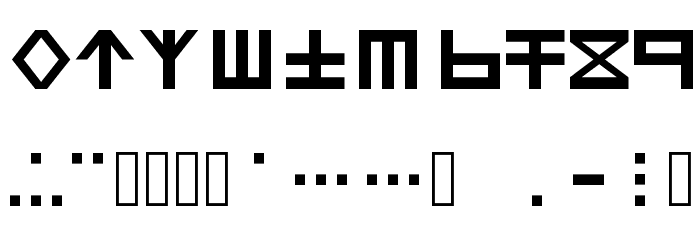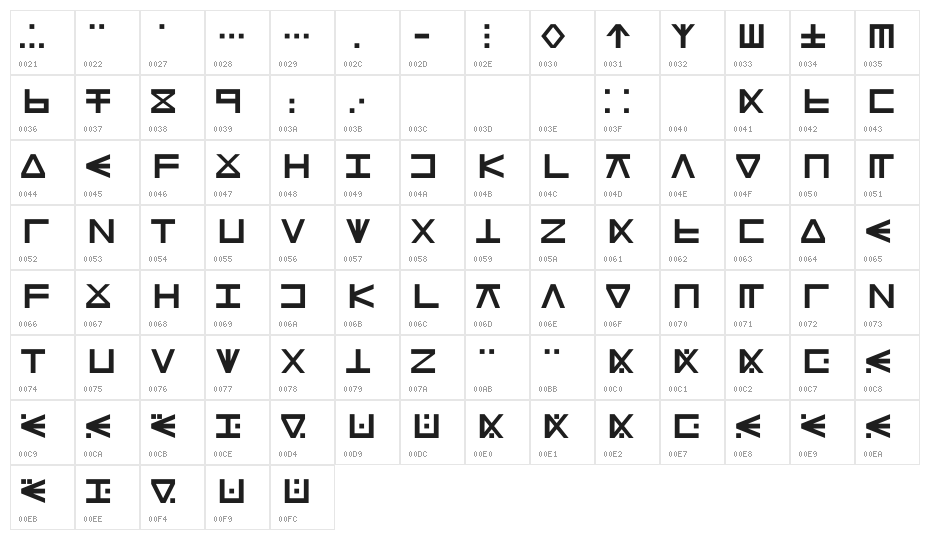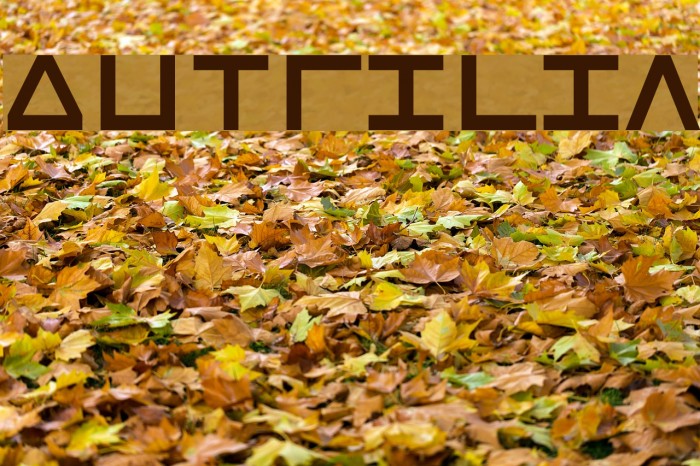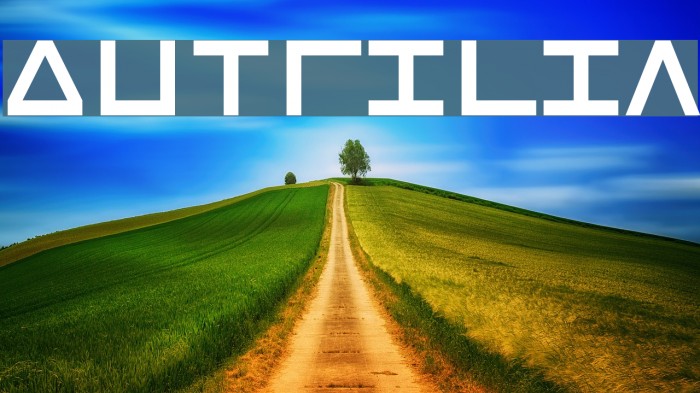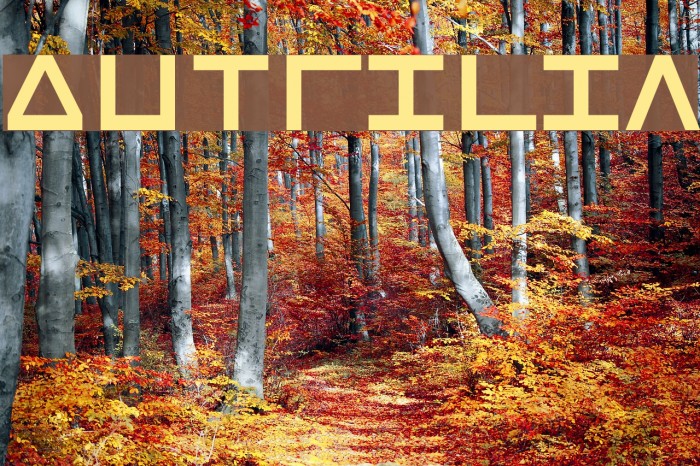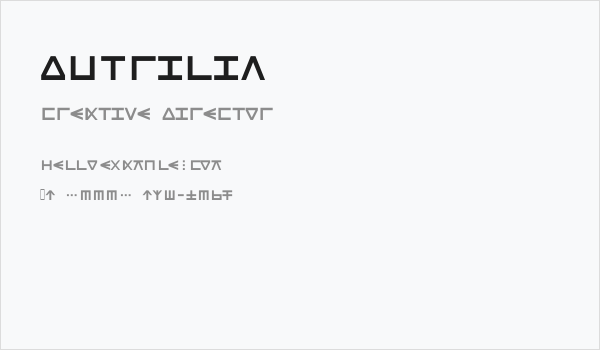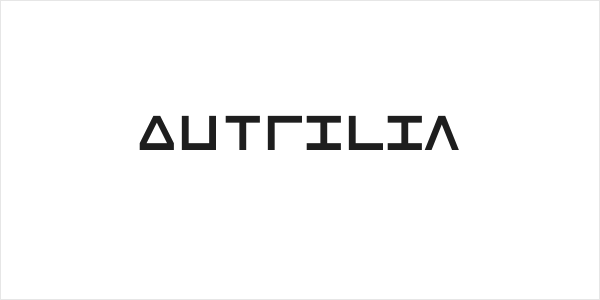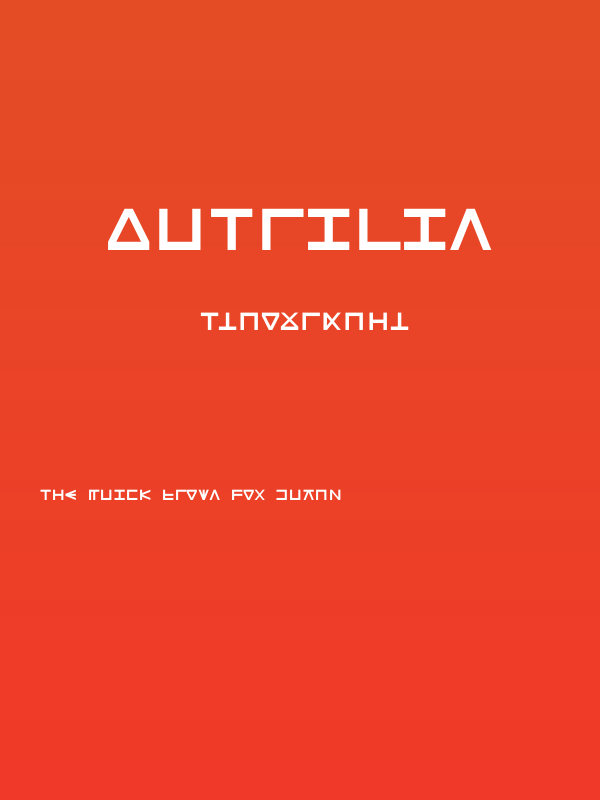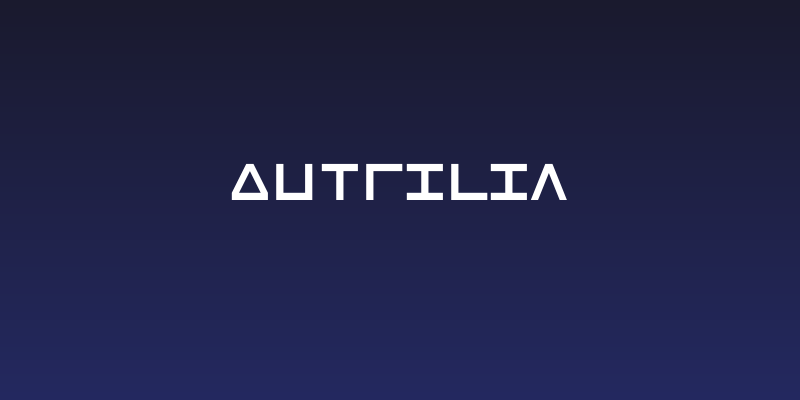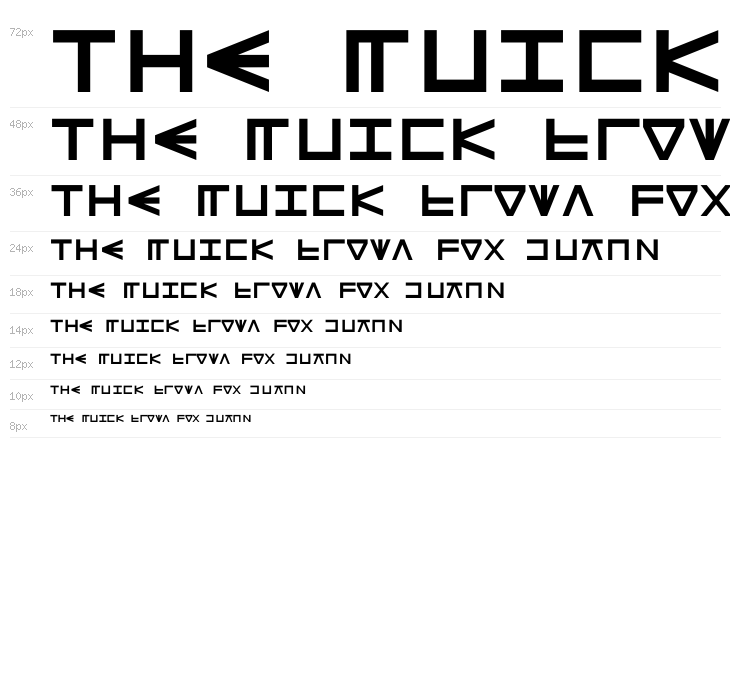
Dutrilin Font
Dutrilin Description
This font features a highly geometric and angular design, reminiscent of ancient runic or tribal scripts. Each character is constructed with bold, straight lines and sharp angles, creating a sense of rigidity and strength. The uppercase and lowercase letters share a similar structure, maintaining consistency across the alphabet. Numbers and special characters are equally stylized, integrating seamlessly with the overall aesthetic. The font's unique appearance makes it stand out, offering a distinct visual identity that is both modern and primitive.
| Overall Style | Modern, Primitive |
| Proposed Projects | Ideal for projects requiring a unique, standout typeface such as video game graphics, movie posters, or branding for edgy, modern products. |